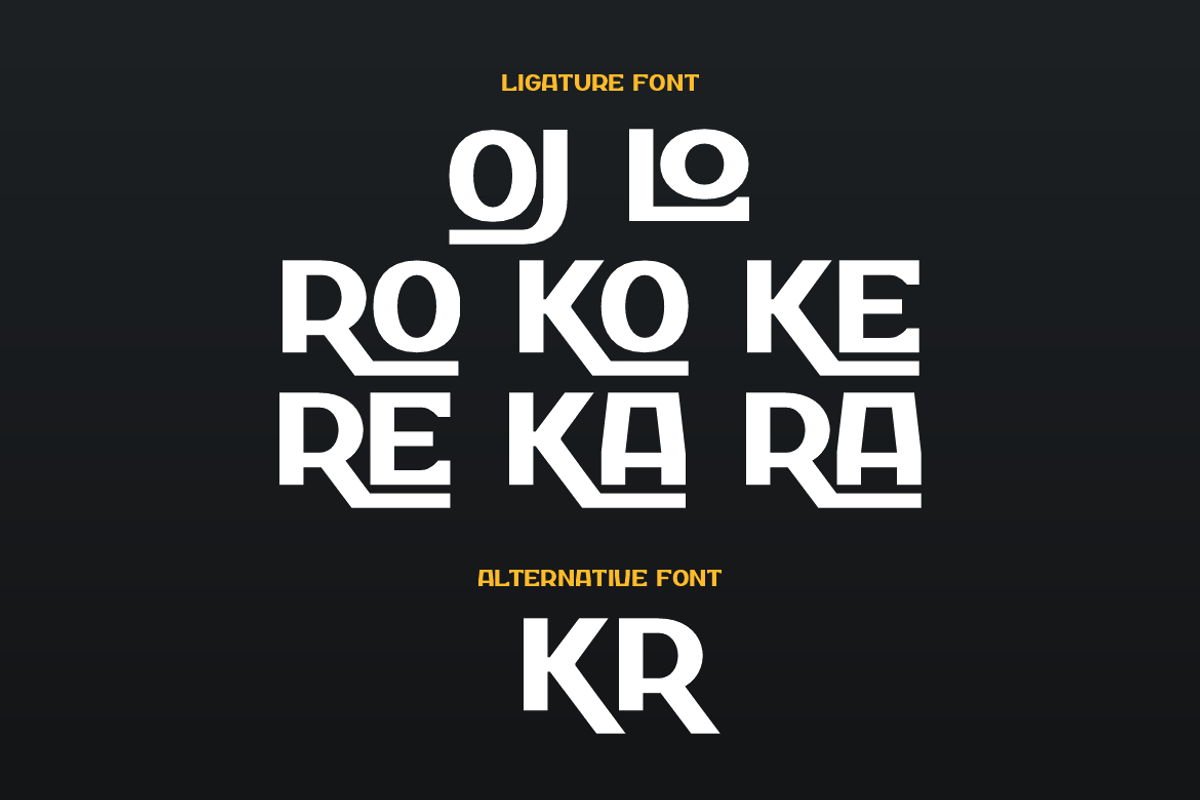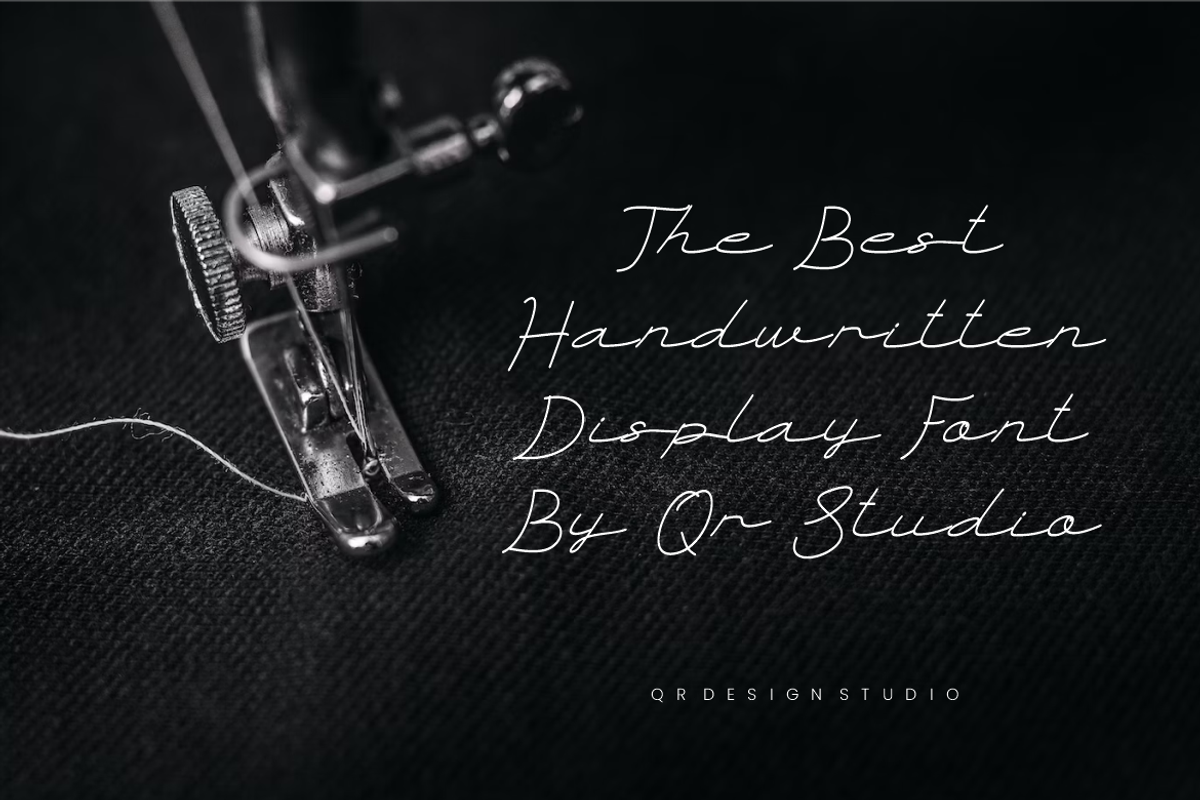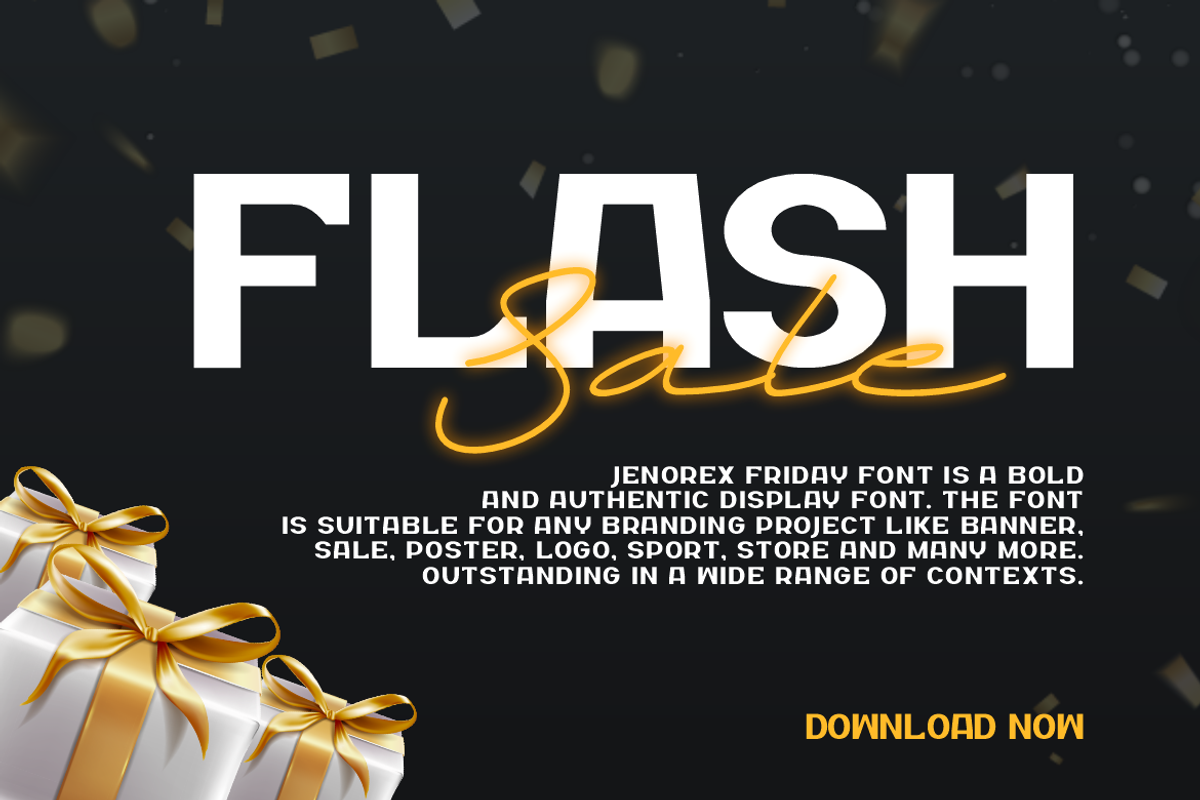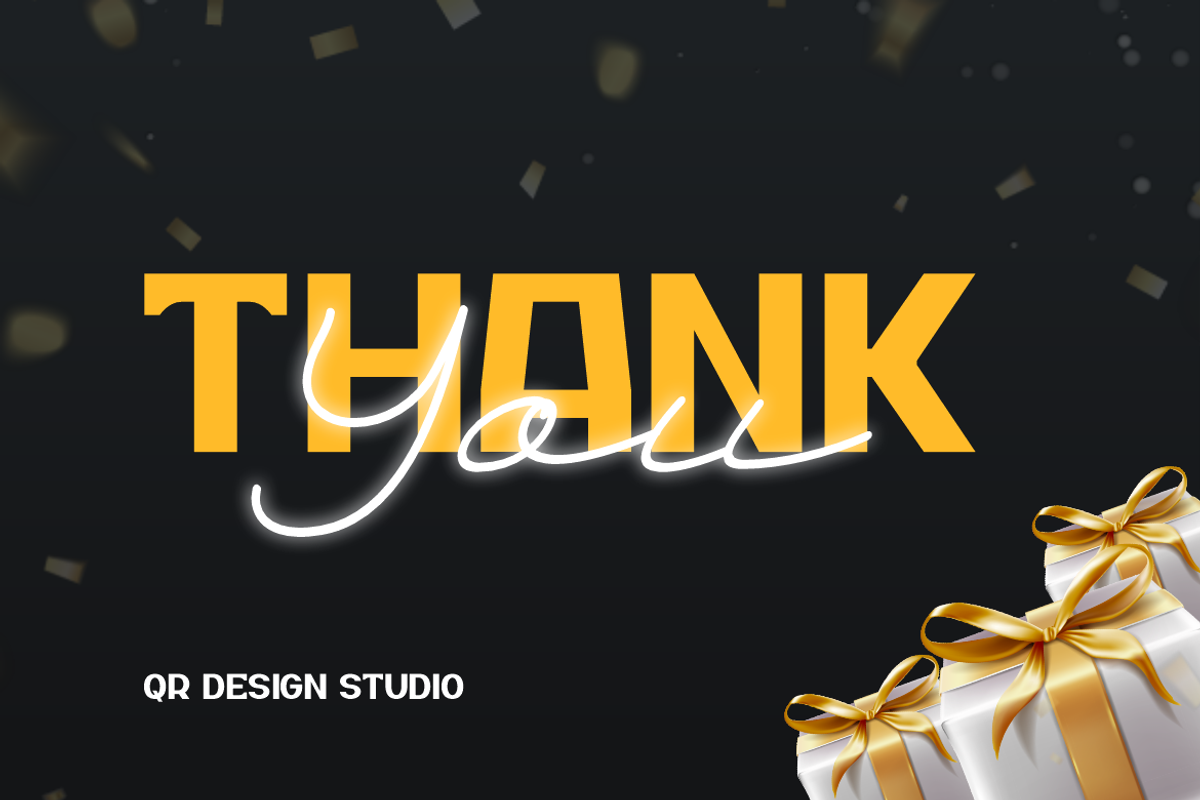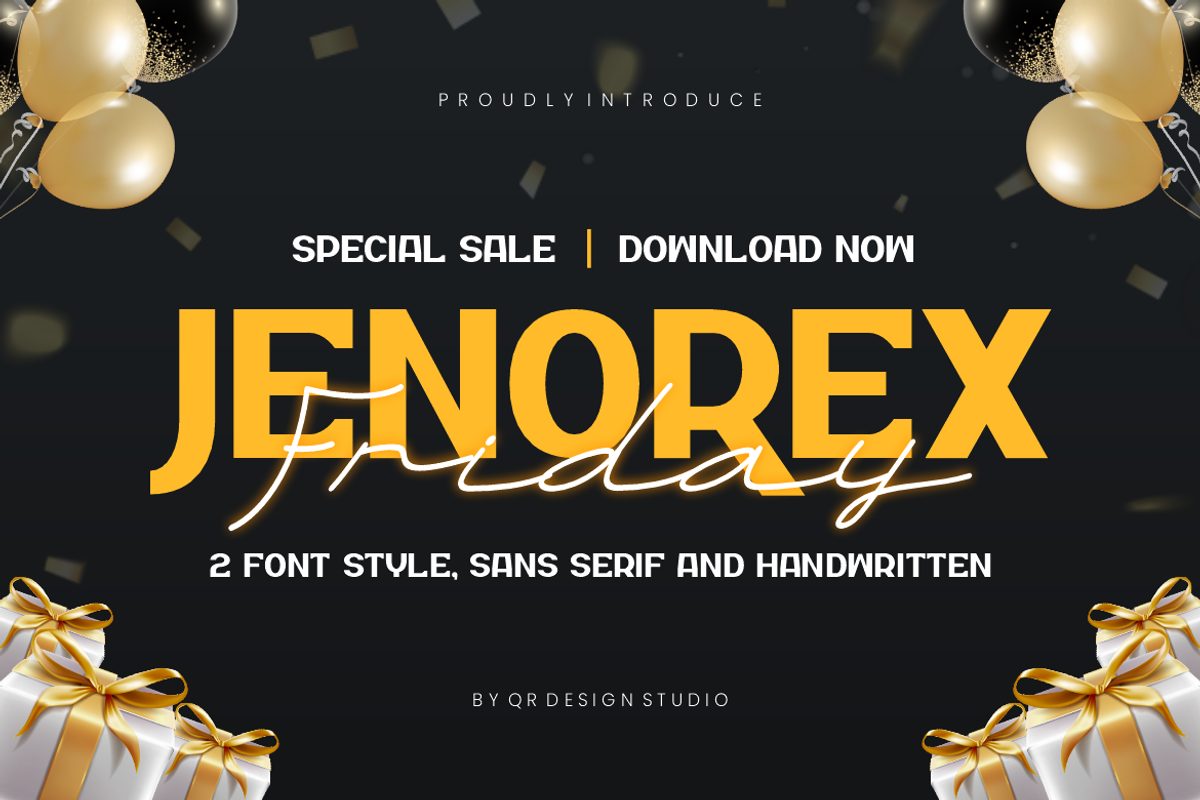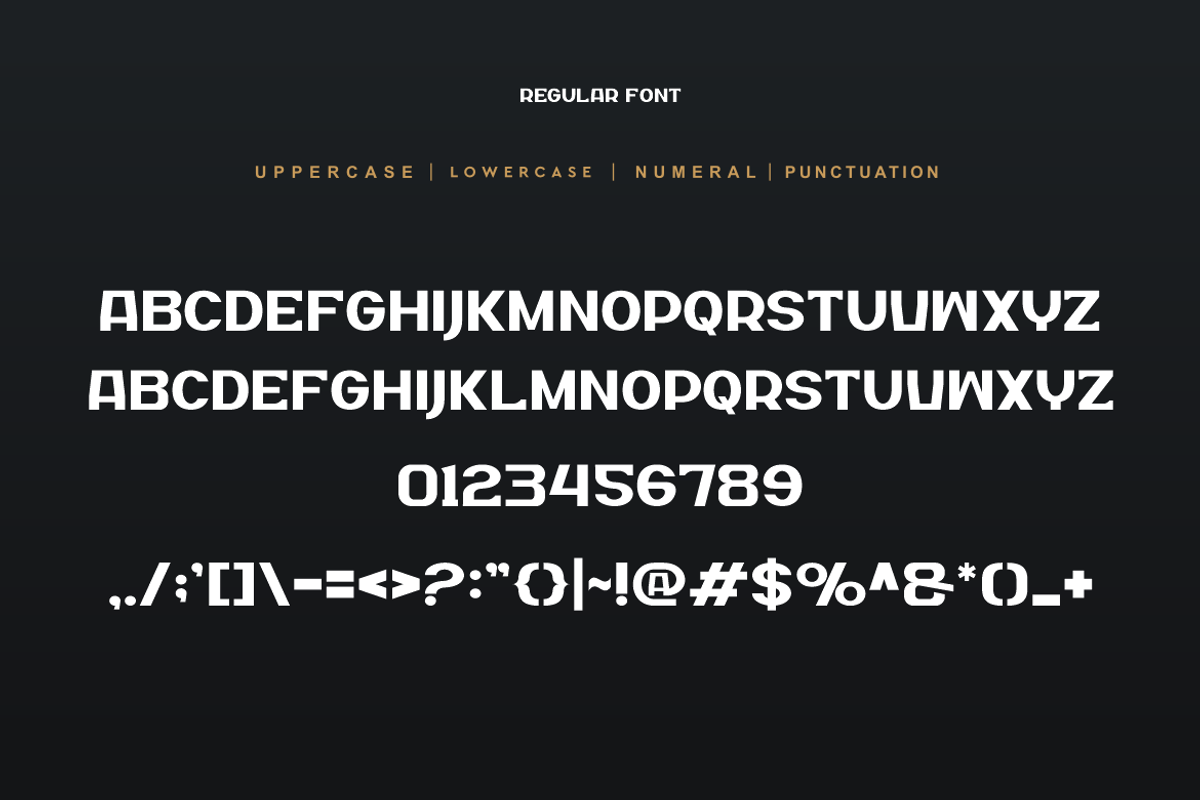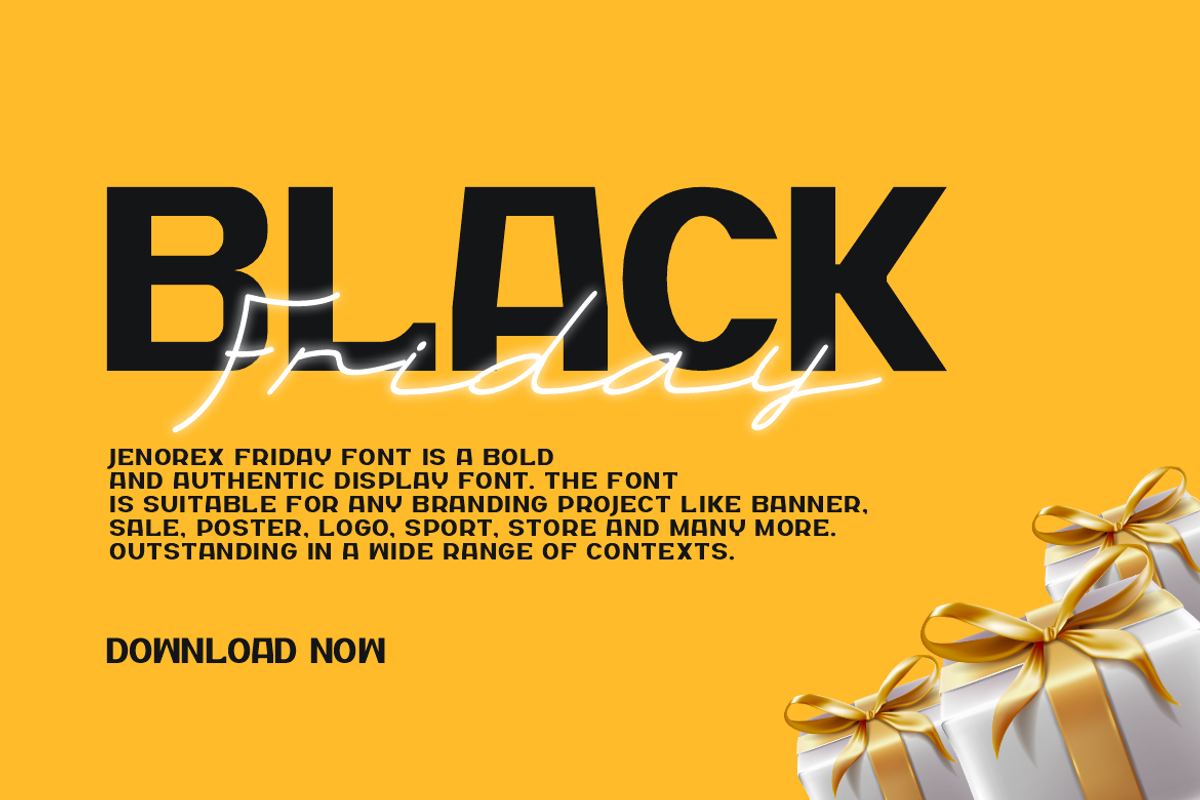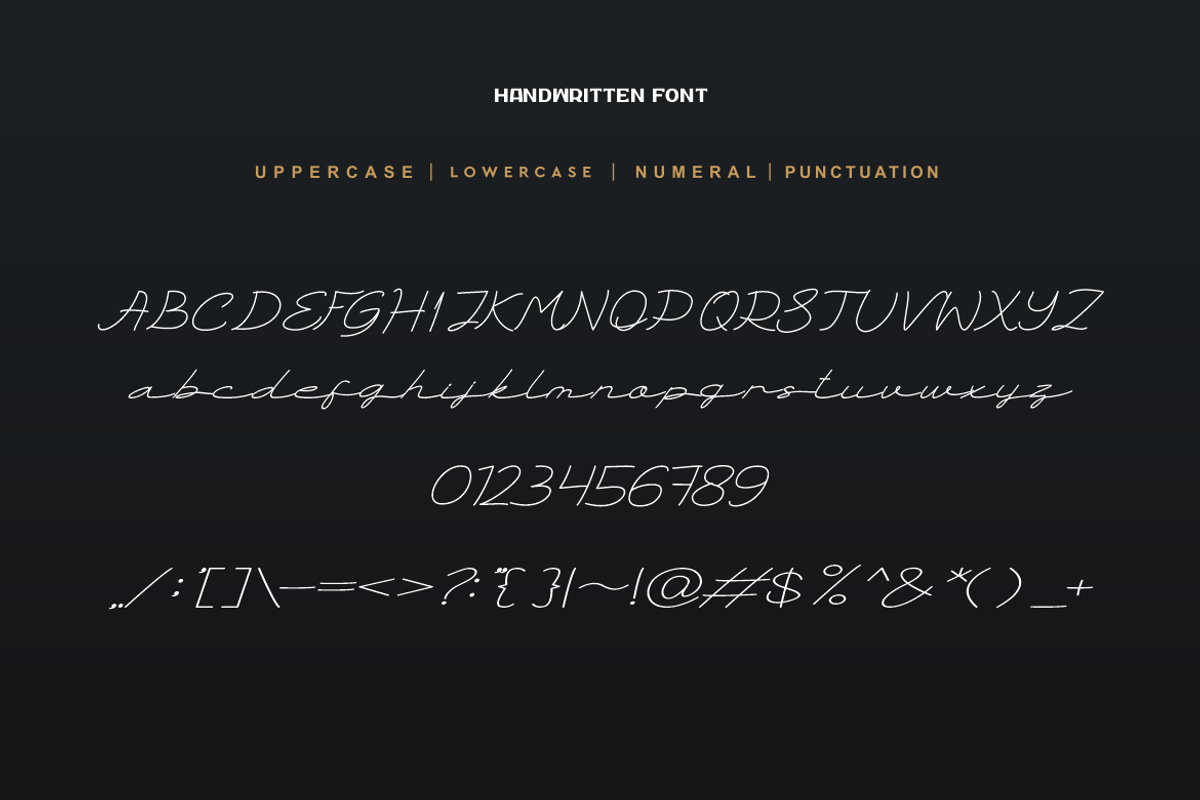
Jenorex Friday
Jenorex Friday - Sans Serif & Handwritten is a bold and authentic display font. The font is suitable for any branding project like sale, poster, flash sale, black friday, logo, sport, and many more. Outstanding in a wide range of contexts.